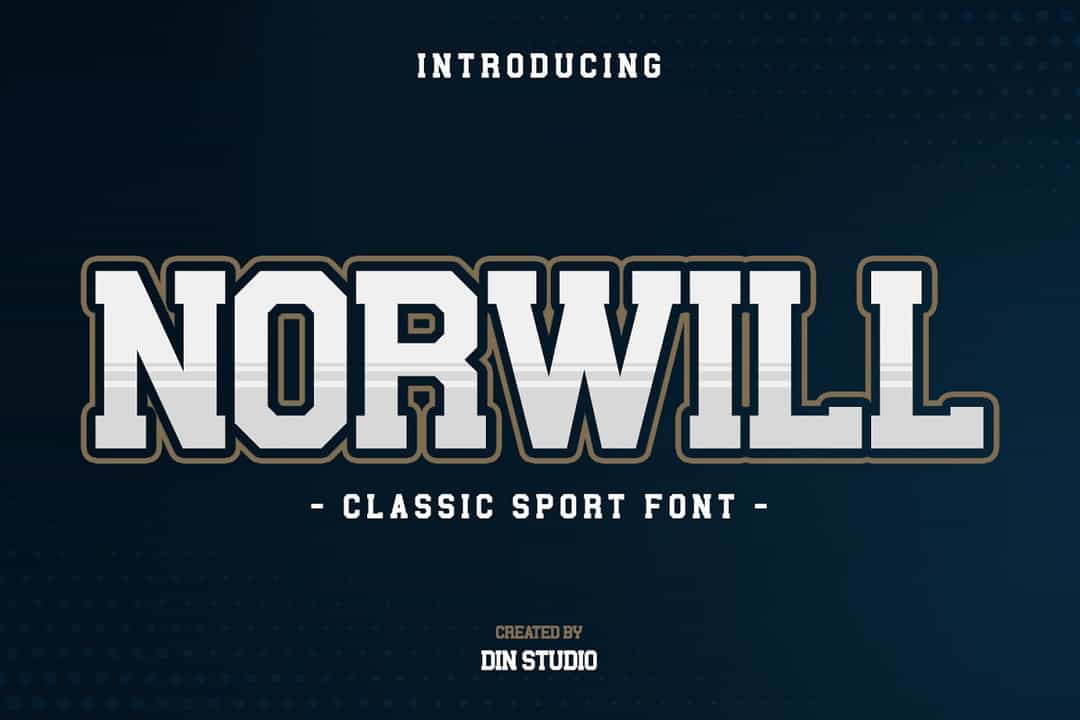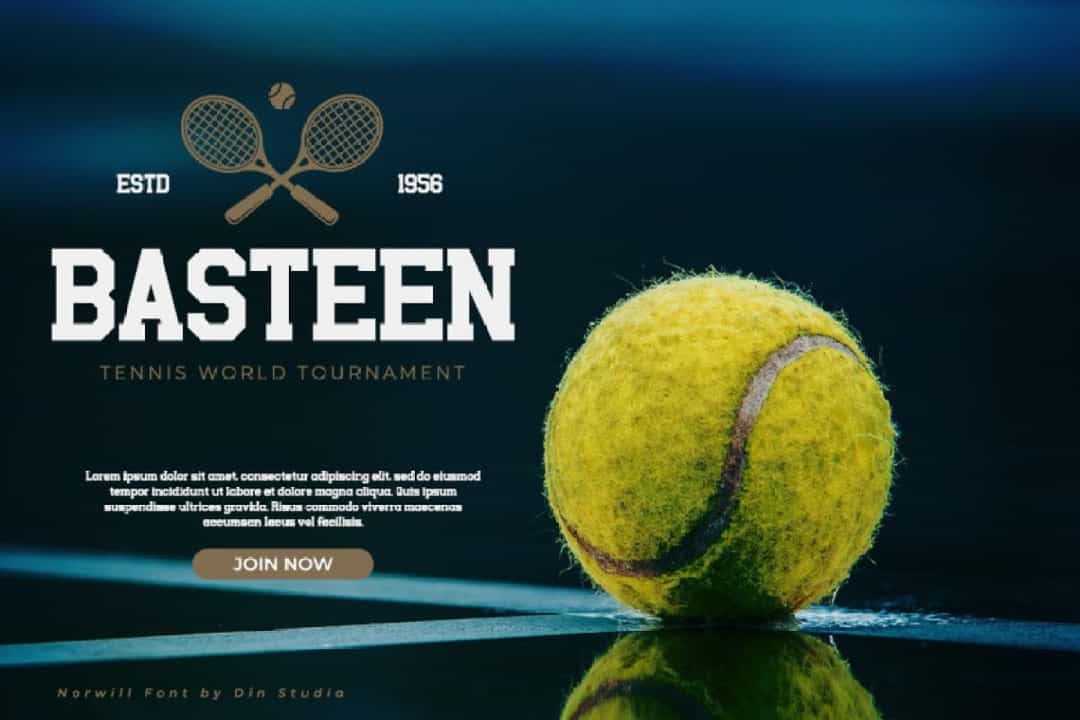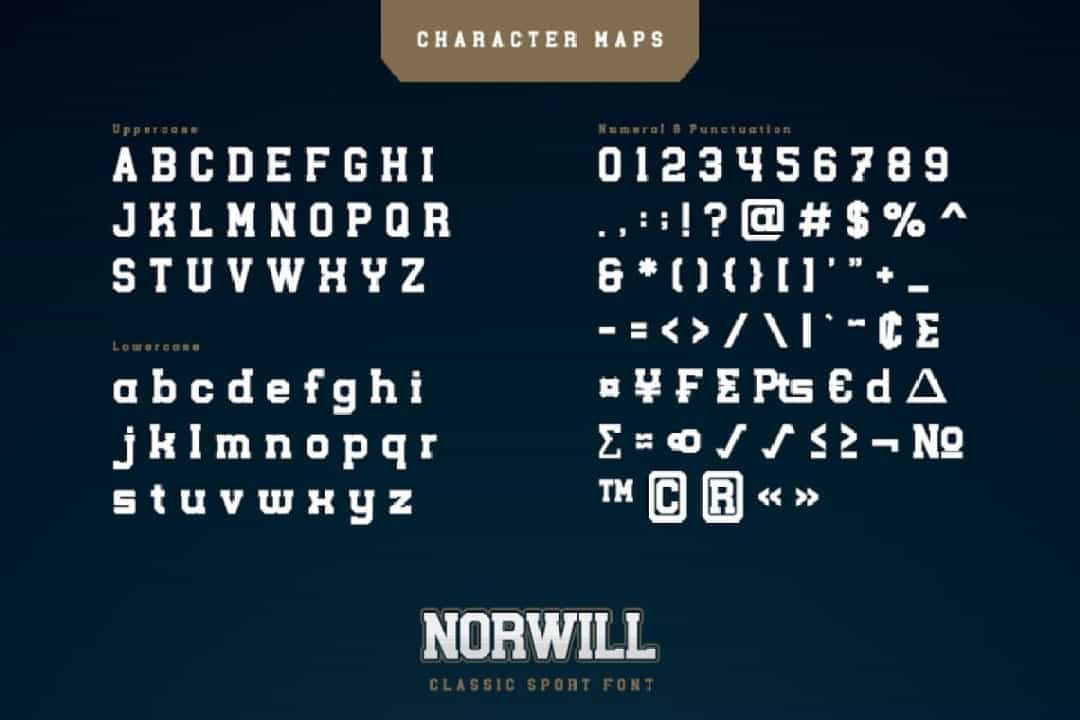
Norwill Classic Sport Font is a next version of display font containing uppercase and lowercase numerals, special characters, and a set of multilingual letters and punctuation signs. Targeted at being used in professional sports projects and branding, printing, and quote projects, this font provides a lot of possibilities.